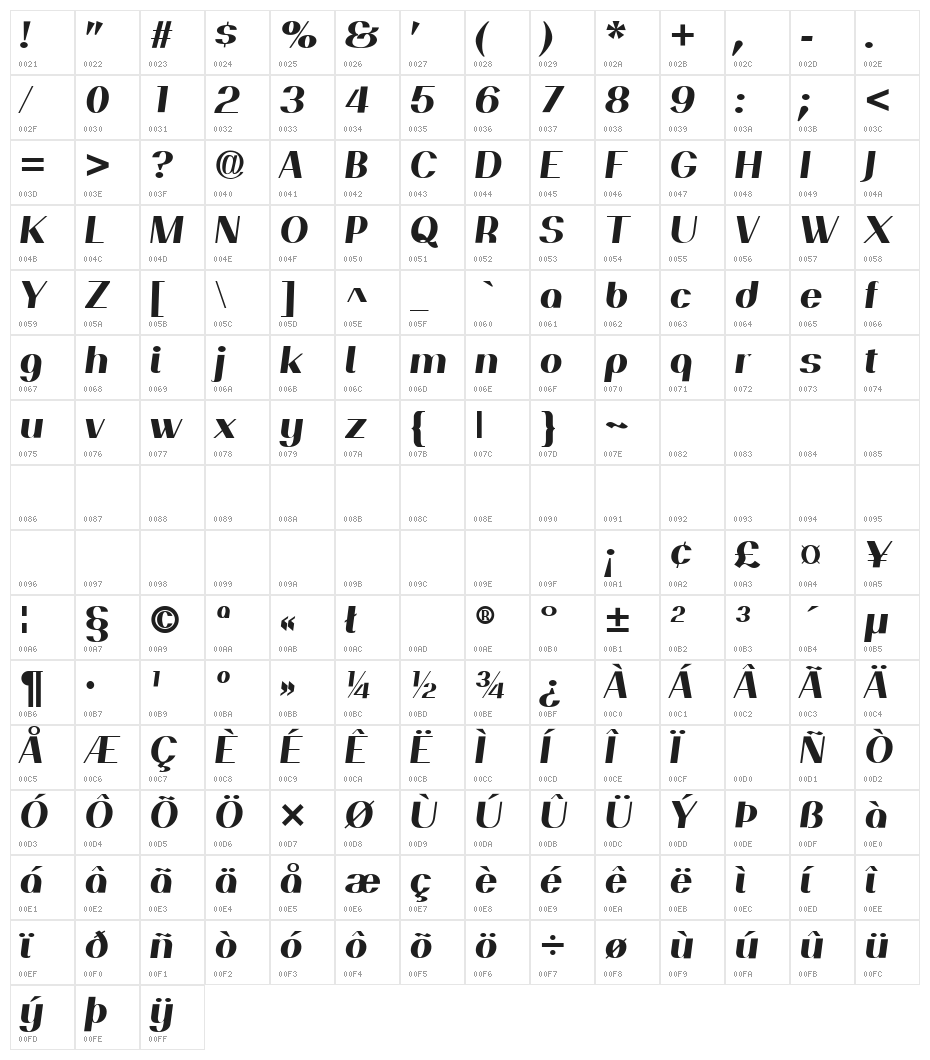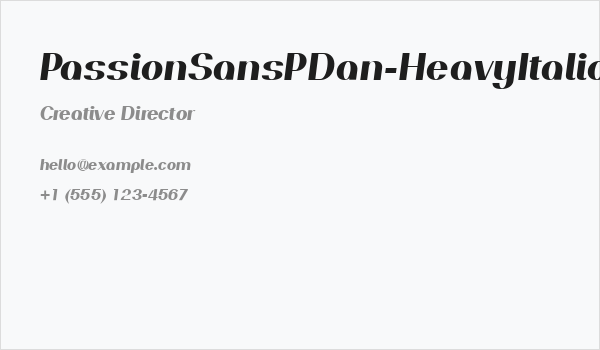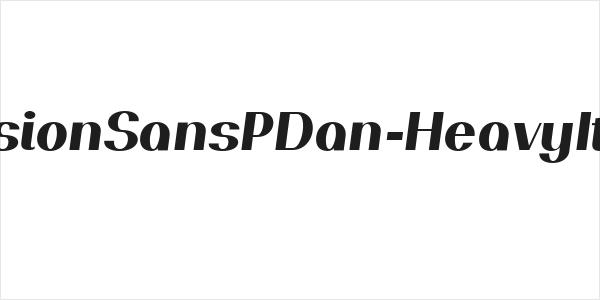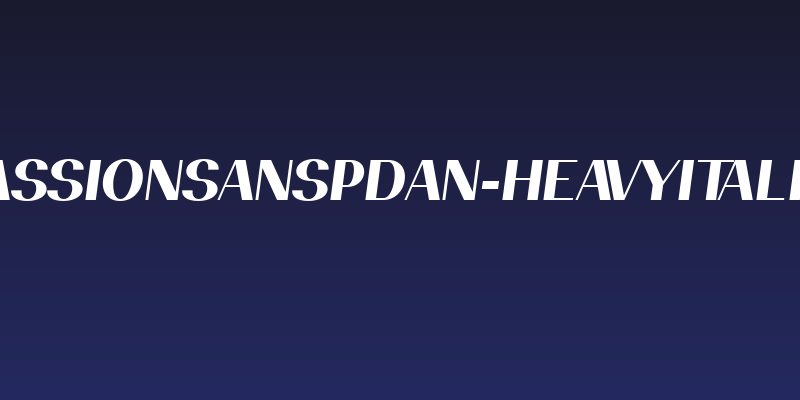
PassionSansPDan-HeavyItalic Font
PassionSansPDan-HeavyItalic Description
This font features a bold and dynamic style with a pronounced italic slant, giving it a sense of movement and energy. The characters are well-defined with a strong presence, making it suitable for impactful headlines and titles. The uppercase letters are tall and commanding, while the lowercase letters maintain a consistent flow, enhancing readability. The numbers are clear and robust, matching the overall boldness of the font. Special characters are designed with the same attention to detail, ensuring a cohesive look across all elements.
| Proposed Projects | Ideal for branding, advertising, and editorial design where a strong and modern impression is needed. |